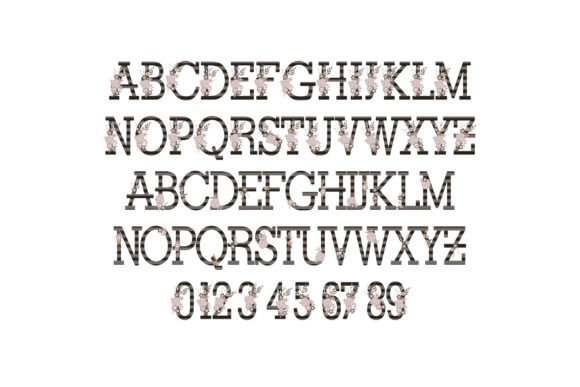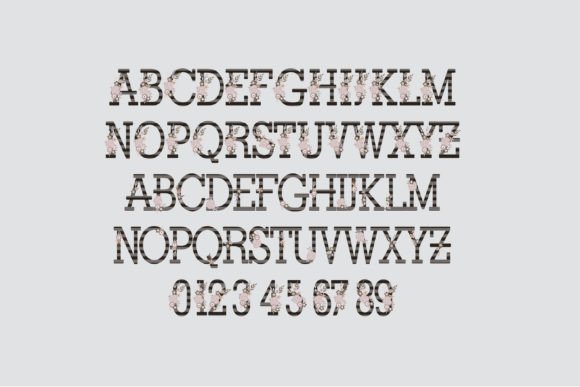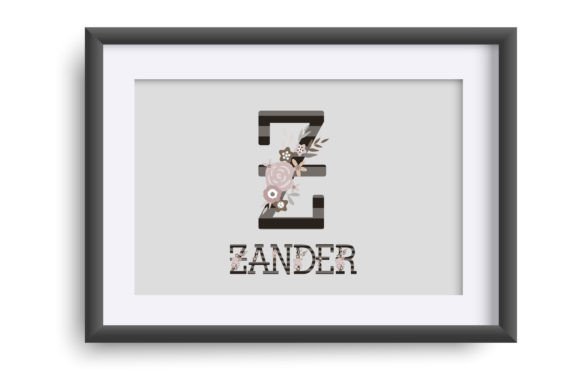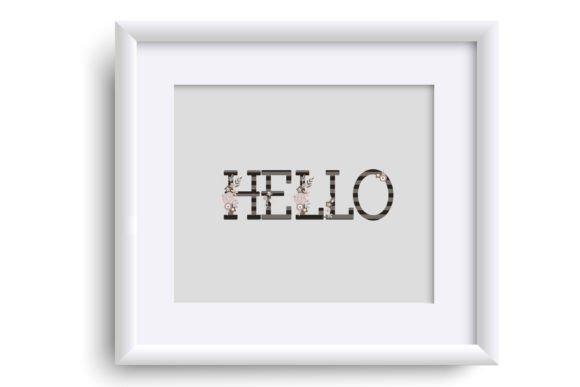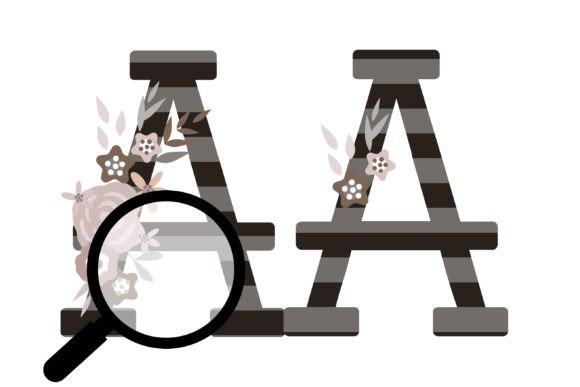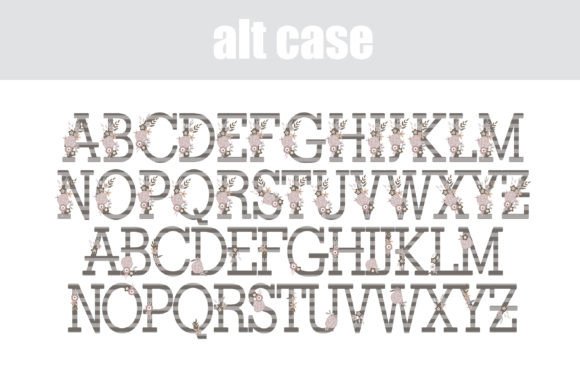
Introduction to Blessed to Death Font Font
Fonts play a crucial role in design, and the Blessed to Death Font font is a typeface that brings both character and versatility to any project. Whether you’re working on a branding project, a website, or a print design, the Blessed to Death Font font offers a unique style that can elevate your work.
This full-color font features a slab serif font in dark stripes with dark, dead florals throughout.
Key Features of Blessed to Death Font Font
Why Choose Blessed to Death Font Font?
The Blessed to Death Font font is more than just a typeface β it’s a design tool that helps you communicate your message with style and clarity. Its unique character set and versatile design make it suitable for a wide range of applications, from elegant invitations to bold headlines.
With its carefully crafted letterforms and balanced proportions, the Blessed to Death Font font ensures readability and visual appeal across all mediums.
What makes Blessed to Death Font font special?
The Blessed to Death Font font stands out with its unique design, exceptional readability, and versatility across various design applications.